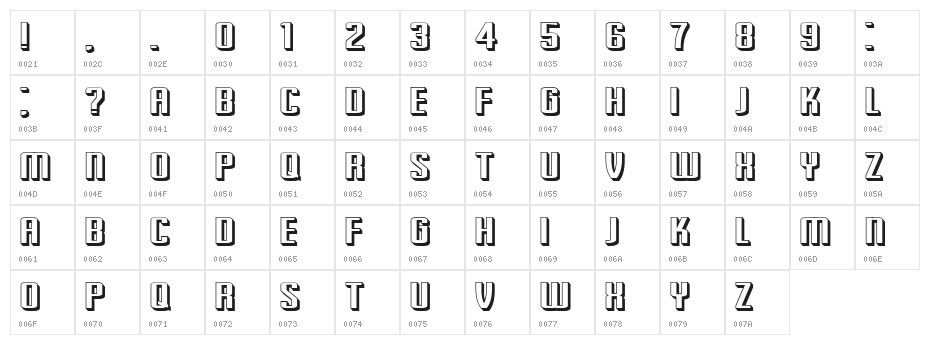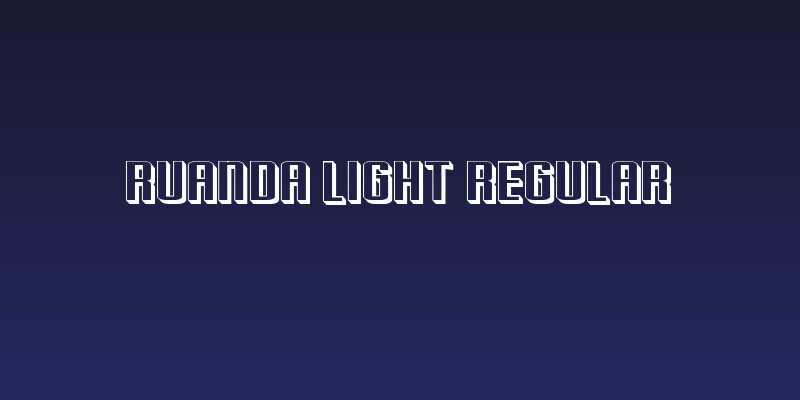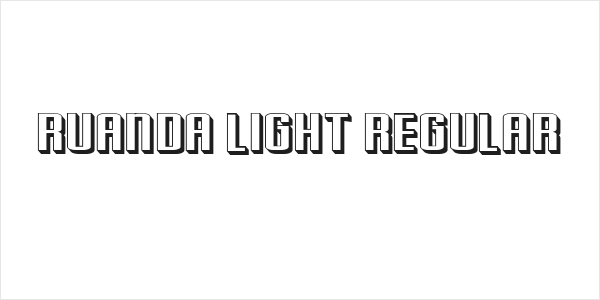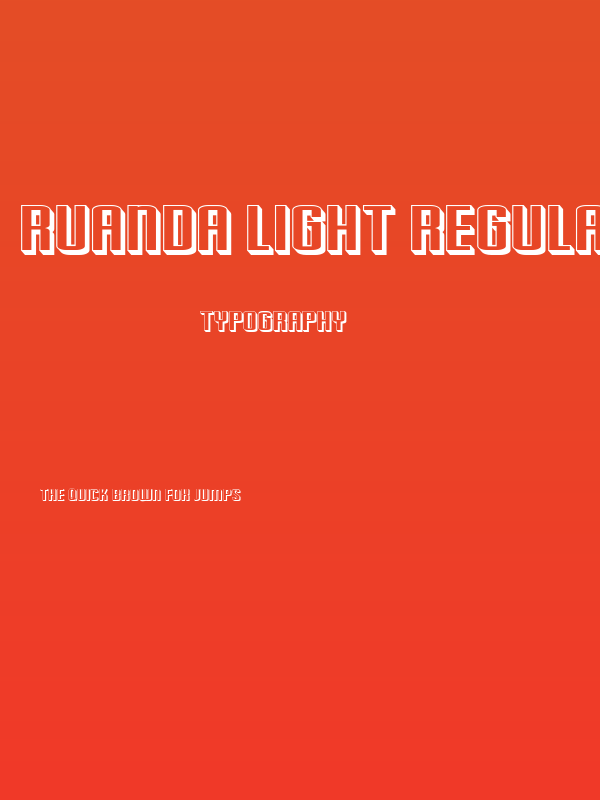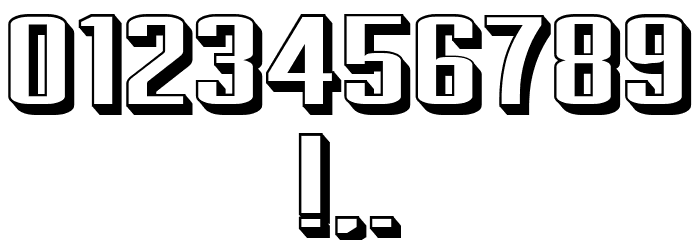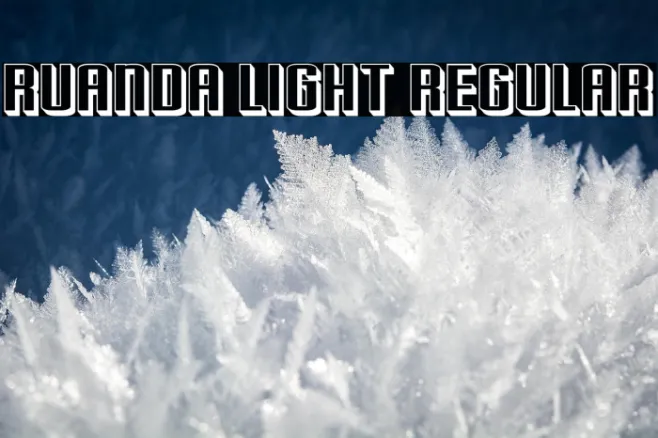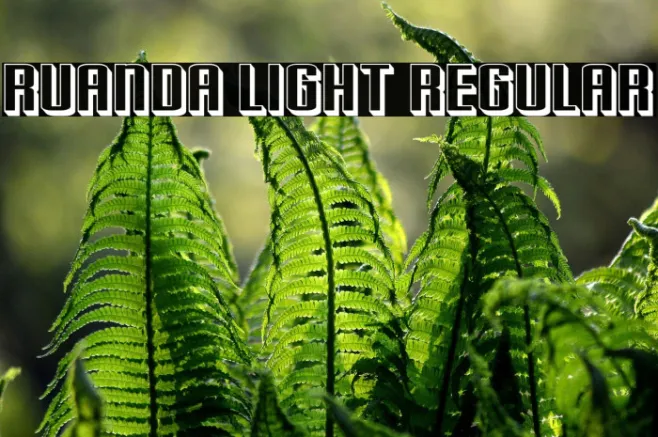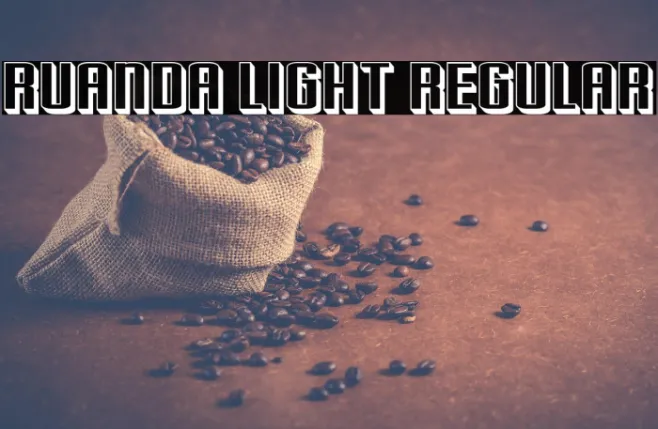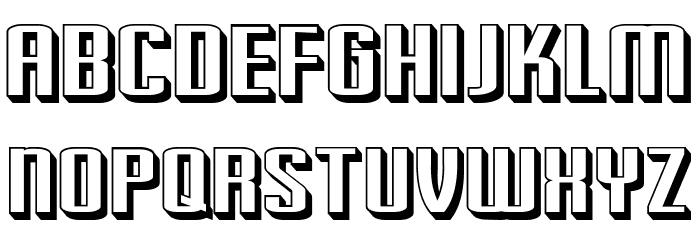
Ruanda Light Regular Font
Ruanda Light Regular Description
This font features a bold, geometric design with a three-dimensional effect, created by a shadow that gives depth to each character. The uppercase letters are structured with strong, straight lines and sharp angles, conveying a sense of modernity and strength. The numerals and special characters maintain this consistent style, ensuring a cohesive look across all text. The font's design is both eye-catching and legible, making it suitable for impactful headlines and display purposes.